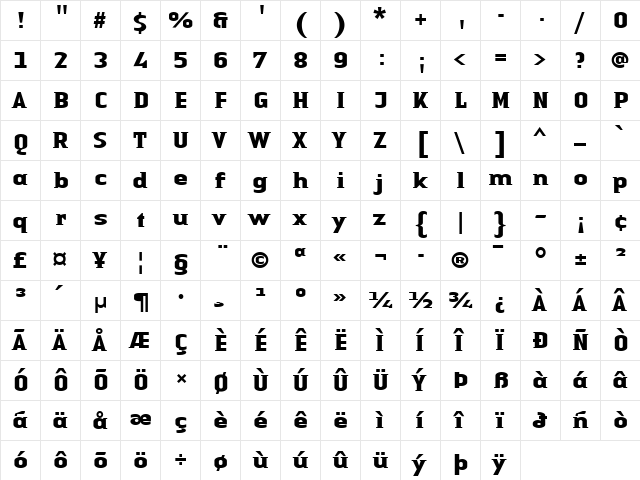
LTAuthenticSmallSerif Bold
Design Context for LTAuthenticSmallSerif Typeface
LTAuthenticSmallSerif carries the refined structure of traditional serif typography, with bracketed terminals and considered proportions that communicate credibility and craft. Its bold stroke weight gives it real presence on the page.